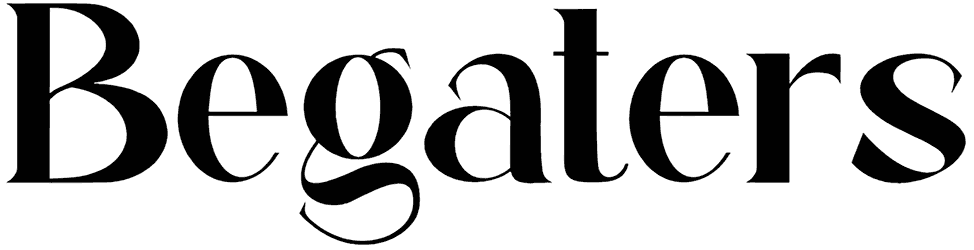
Begaters Font
Want to see how a serif font can still be so sophisticated even without obvious signs like ligatures or swashes? Then meet Begaters… Don’t you think this level of luxury belongs to your restaurant menus, legal consultant business cards, artistic creations, or somewhere else like that?
As you can notice, the characters are constantly switching between thin and thick lines, with the added elegance of occasional turns and bends in their structure and very subtle serifs, just to be eye-catching enough.